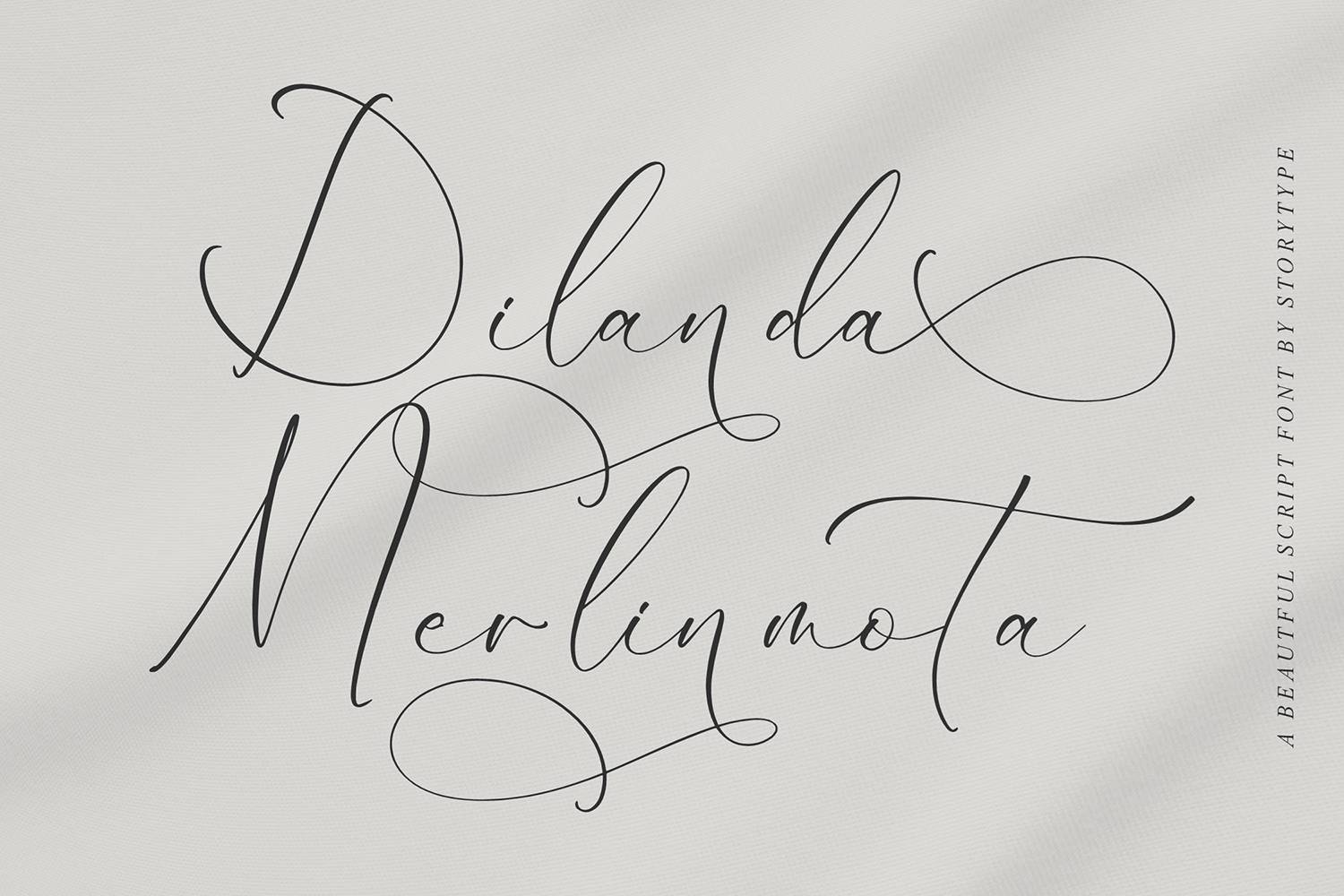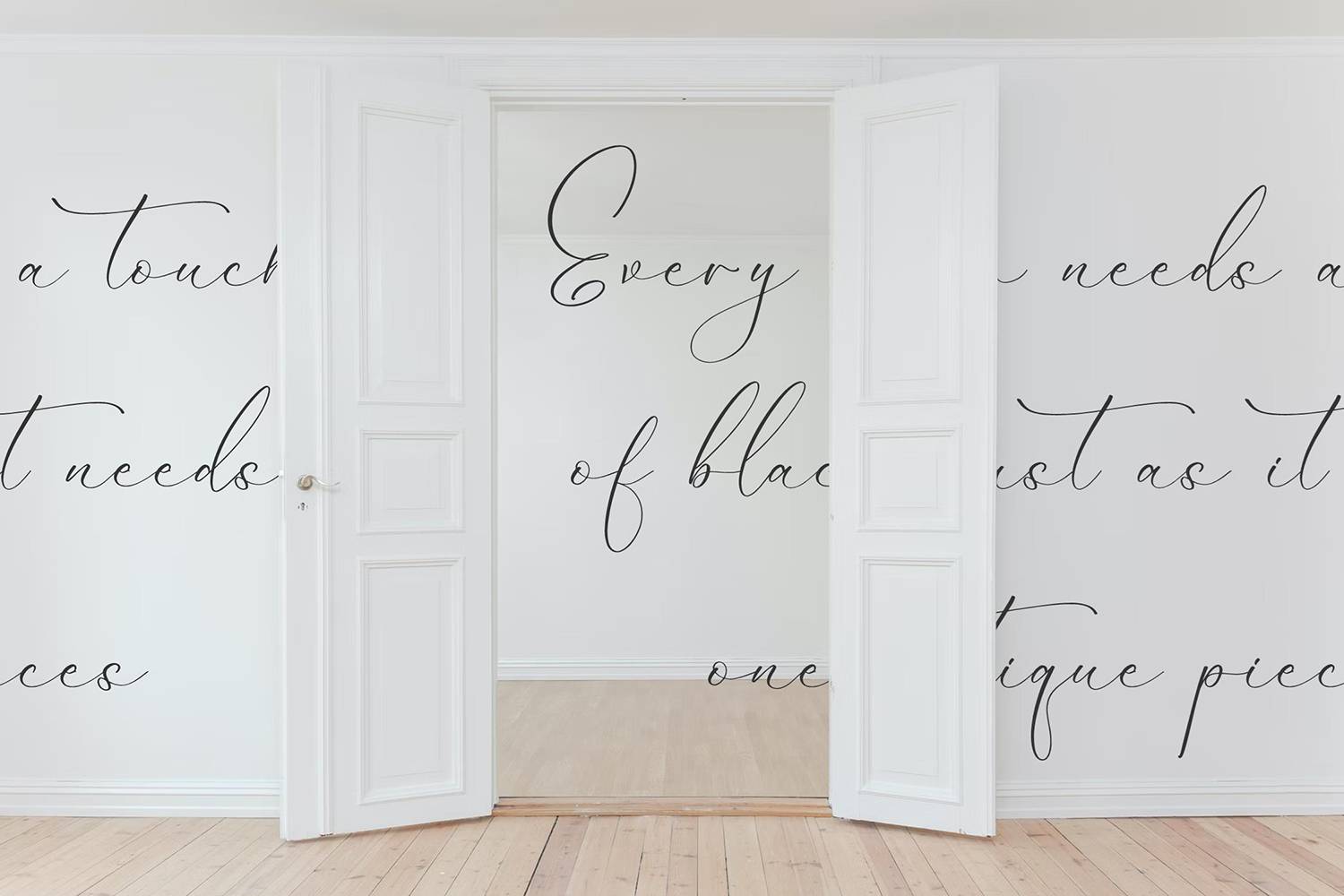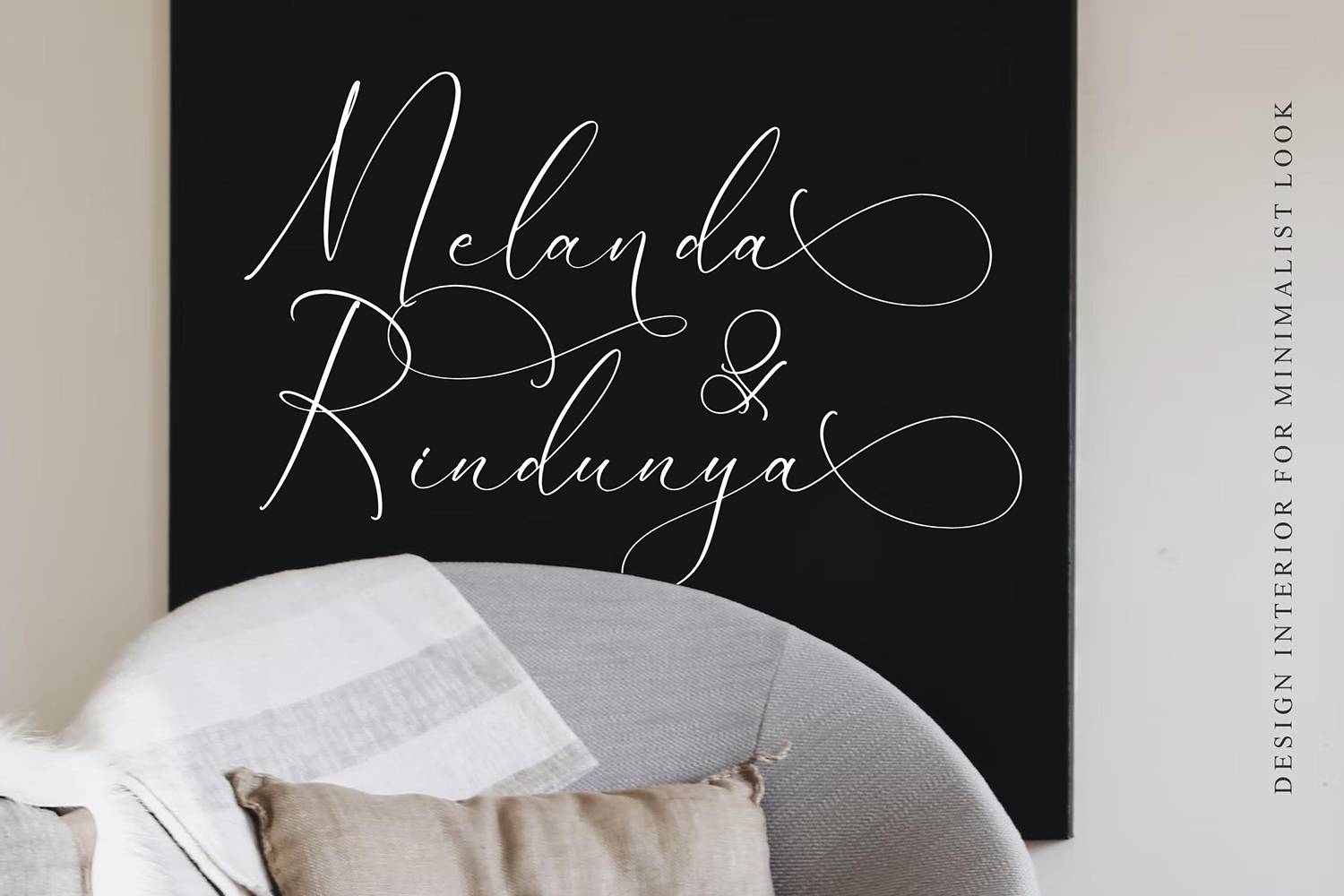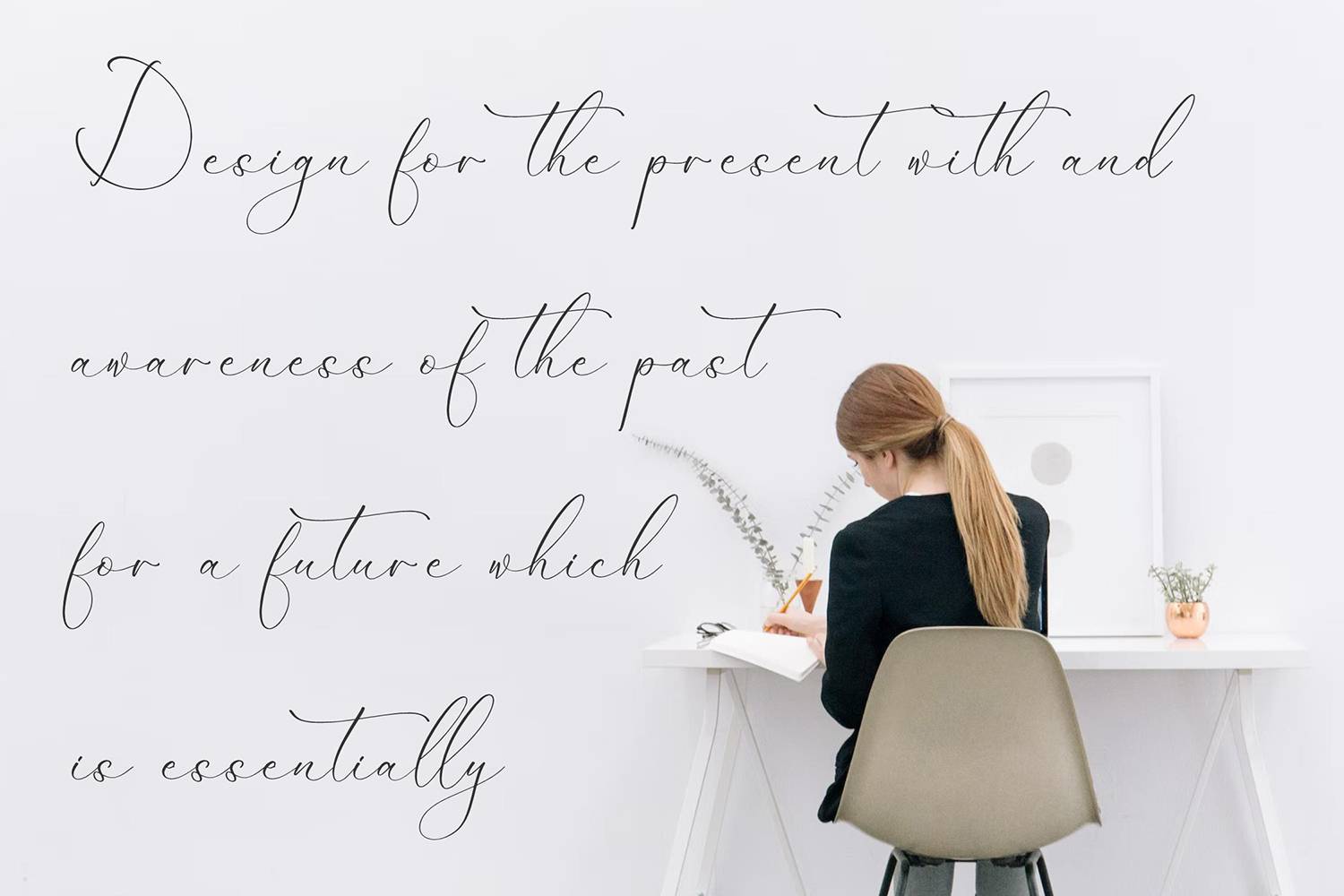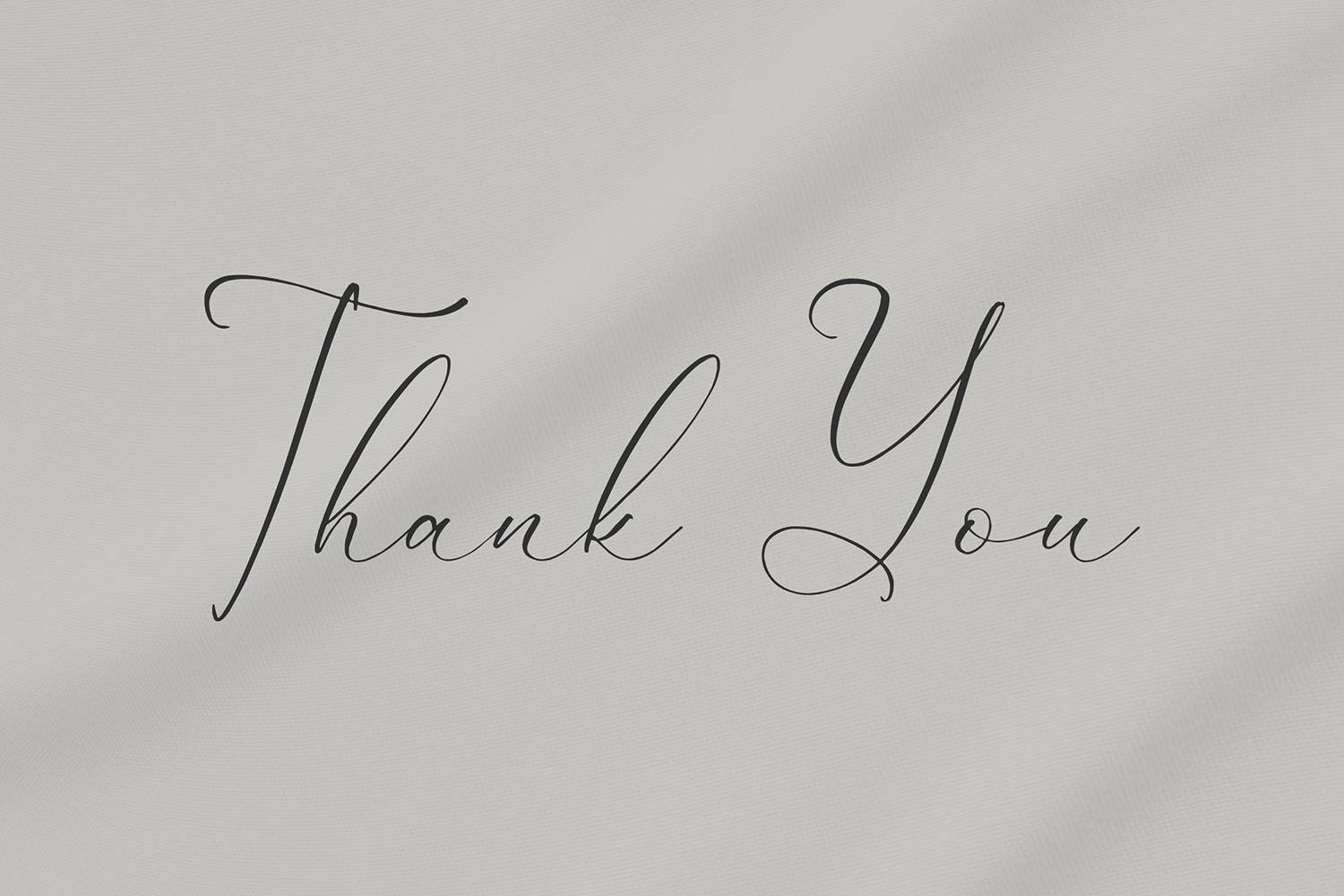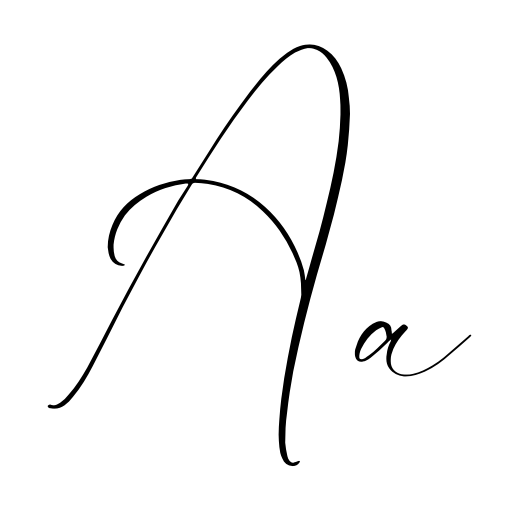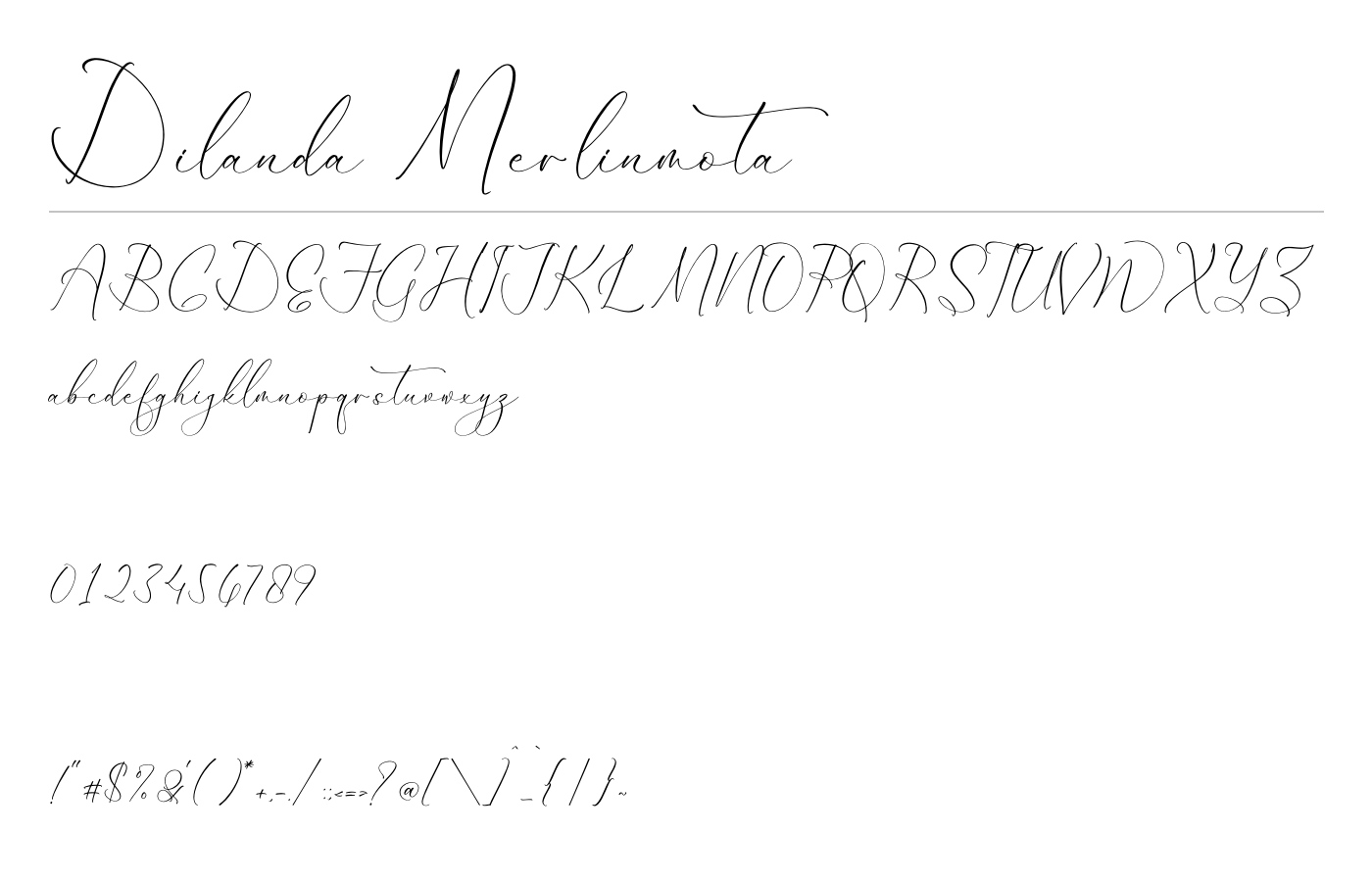
Dilanda Merlinmota is a delicate and elegant script font characterized by its thin, flowing strokes and graceful curves. Its light weight and airy letterforms give it a sophisticated, handwritten feel perfect for invitations, branding, and projects that require a touch of refinement and charm. This font works beautifully in designs that emphasize elegance and personalization, such as luxury packaging, wedding stationery, and stylish editorial headlines.
Dilanda Merlinmota Font
About Dilanda Merlinmota Font